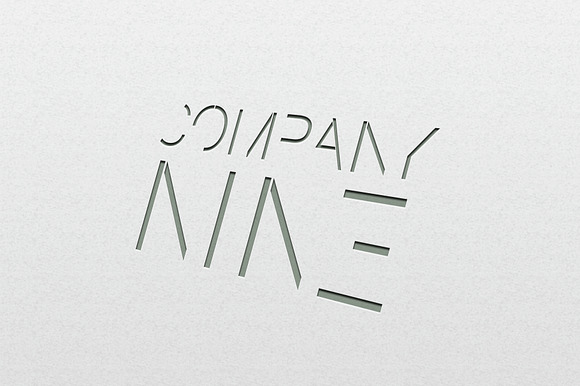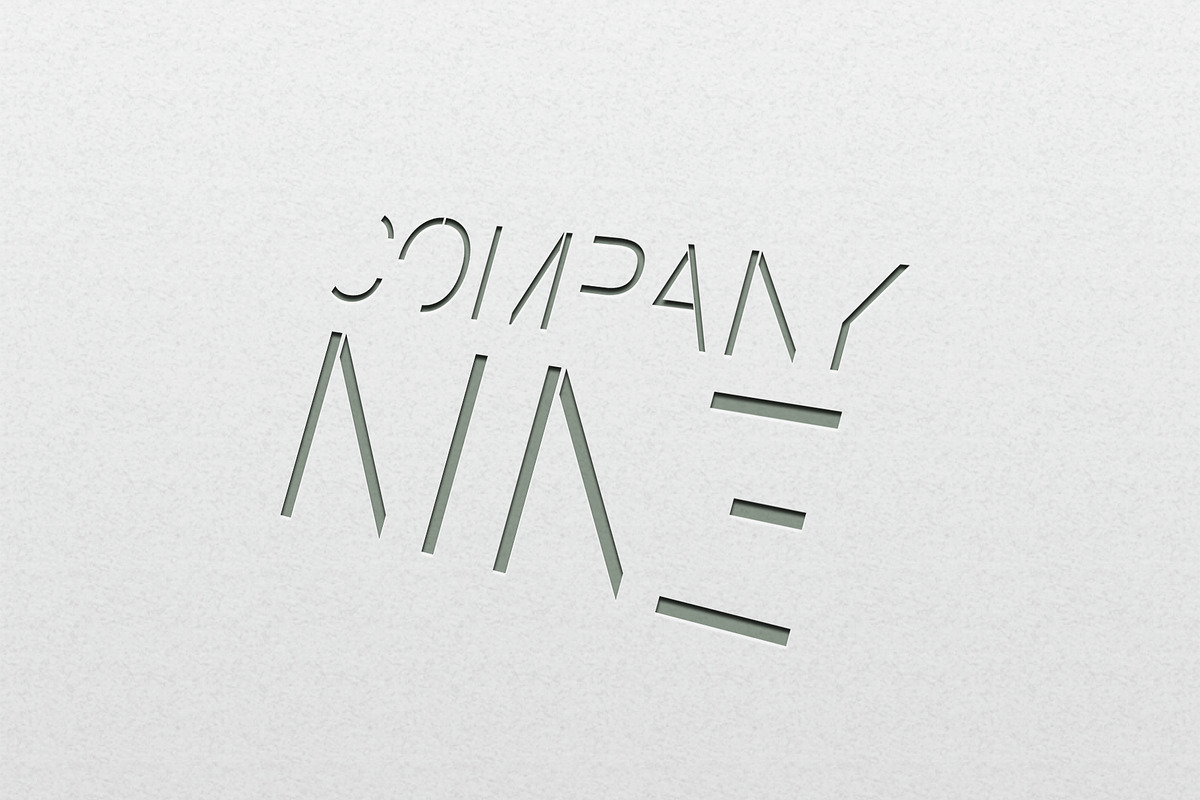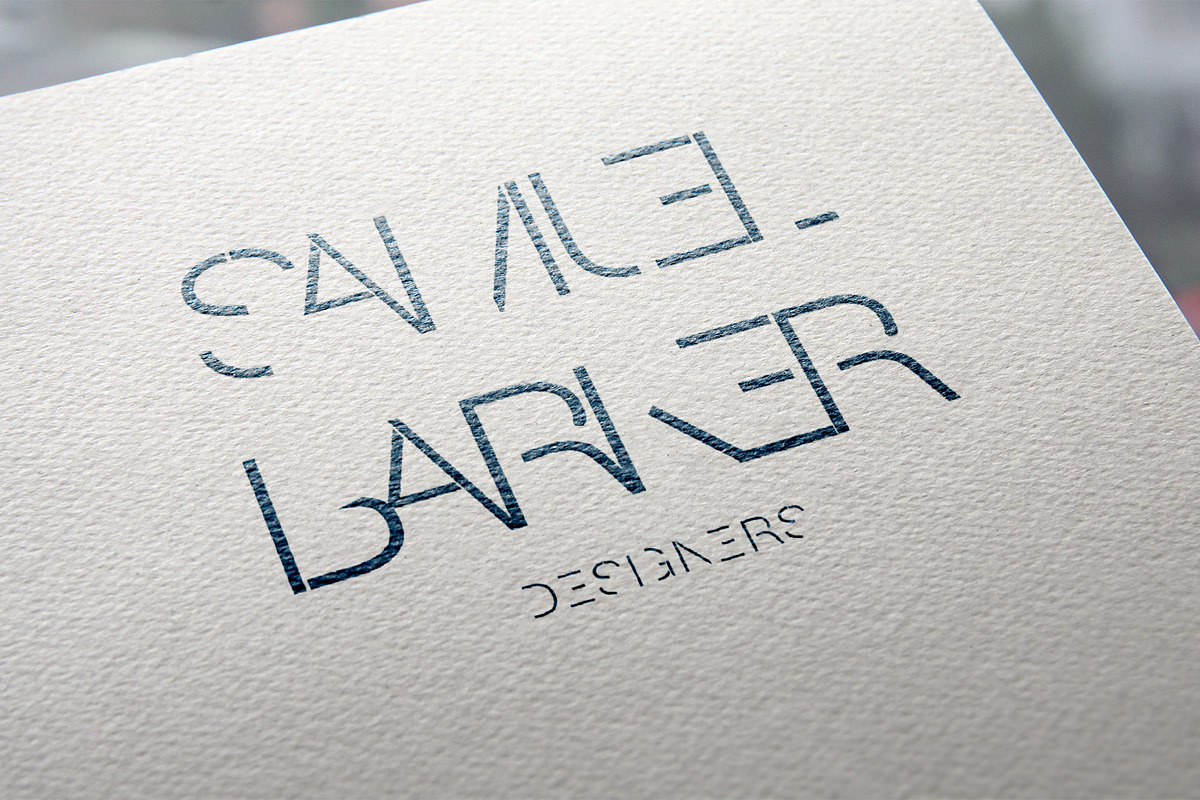
Terminal Four Modern Font
Introducing a new modern style sans serif font - Terminal Four
This is a super modern all caps font, perfect for quotes, invites, weddings, posters, signs, branding, logos, signage, and much more!
- International Characters Included.
Terminal Four Modern Font by Creativeqube Design fits naturally into Branding, posters, packaging, typography.